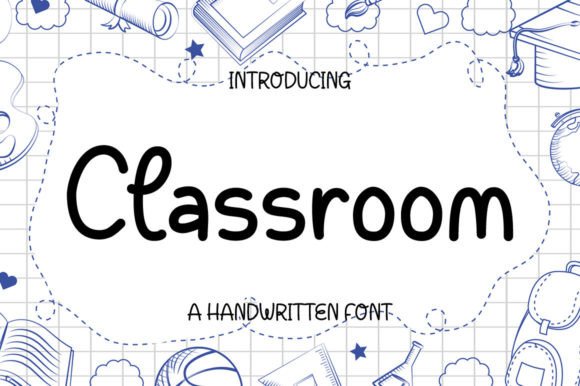
Classroom: A Handwritten Font for Romantic and Personalized Designs
The Classroom font is a charming, casual handwritten typeface that brings a dainty and joyful aesthetic to any design project. With its soft curves and friendly appearance, itβs ideal for creating a warm, personal touch in various applications. Whether you're designing wedding invitations, greeting cards, or other romantic projects, Classroom offers a unique visual appeal that stands out from more traditional fonts.
Understanding the Classroom Font
Classroom is a handwritten font that mimics the natural flow of pen and paper. Its design is reminiscent of casual, everyday writing, making it feel approachable and authentic. Unlike formal serif or sans-serif fonts, Classroom adds a sense of intimacy and individuality to text. This makes it particularly well-suited for projects that aim to convey a personal or sentimental message.
The font features a consistent stroke width and gentle variations in letterforms, which contribute to its handcrafted look. It is available in both uppercase and lowercase letters, allowing for flexibility in different design contexts. The overall style is clean but not overly rigid, striking a balance between structure and spontaneity.
Why Someone Might Be Interested in Classroom
Individuals who are looking for a way to add a personal or romantic flair to their designs may find Classroom appealing. Its informal nature makes it a good choice for creative professionals such as graphic designers, event planners, and artists who want to express a unique identity through typography. For those who work with weddings, baby showers, or special occasion invitations, Classroom can help create an atmosphere of warmth and charm.
Additionally, people who prefer a more organic and less structured look may be drawn to Classroom. It provides an alternative to standard digital fonts, offering a fresh and distinctive option for those seeking something different. Its simplicity also makes it easy to read, even in smaller sizes, which is important for legibility in printed materials.
Benefits of Using Classroom
One of the main advantages of Classroom is its ability to convey a personal and heartfelt message. Its handwritten style gives the impression of being crafted by hand, which can enhance the emotional impact of a design. This makes it especially effective for projects that rely on sentiment, such as thank-you notes, love letters, or custom illustrations.
Another benefit is its versatility. While it's often associated with romantic or casual designs, Classroom can also work in more modern or minimalist contexts. Its clean lines and balanced proportions allow it to blend well with other typefaces, making it a flexible choice for a variety of design needs. It is also suitable for both digital and print media, providing a consistent look across different formats.
Considerations and Tradeoffs
While Classroom has many strengths, it may not be the best choice for every situation. Its informal style could be seen as too casual for certain professional or formal settings. If the goal is to convey authority, seriousness, or professionalism, a more structured font might be more appropriate.
Readability is another factor to consider. Although Classroom is generally legible, it may not be as clear as some other fonts when used in large blocks of text. This means itβs better suited for short phrases, headings, or decorative elements rather than long paragraphs. Users should also be mindful of the context in which itβs used to ensure it aligns with the overall tone and purpose of the design.
Situations Where Classroom Is a Strong Fit
Classroom excels in situations where a personal, intimate, or whimsical feel is desired. Wedding invitations, birth announcements, and holiday cards often benefit from its soft and inviting style. It can also be used in branding for businesses that want to communicate a friendly and approachable image, such as boutique shops, artisanal services, or lifestyle brands.
In addition, Classroom works well in social media graphics, blog headers, and promotional materials that aim to connect with a specific audience. Its handcrafted appearance can make content feel more authentic and engaging, helping to build a stronger connection with viewers.
Situations Where Alternatives May Be Worth Considering
For projects that require a more formal or structured look, alternatives like serif or sans-serif fonts may be more suitable. If clarity and precision are critical, such as in technical documents, signage, or user interfaces, a more readable font might be a better choice. Similarly, if the goal is to create a bold or modern statement, a more stylized or geometric font could offer greater impact.
Itβs also important to consider the target audience. While Classroom may resonate with younger or more creative audiences, it may not be as effective for older or more traditional demographics. Designers should evaluate how the font aligns with the preferences and expectations of their intended viewers.
Ultimately, Classroom is a great option for those who want to add a personal, romantic, or whimsical touch to their designs. Its charm and versatility make it a compelling choice for a wide range of creative projects, provided it aligns with the desired tone and purpose.